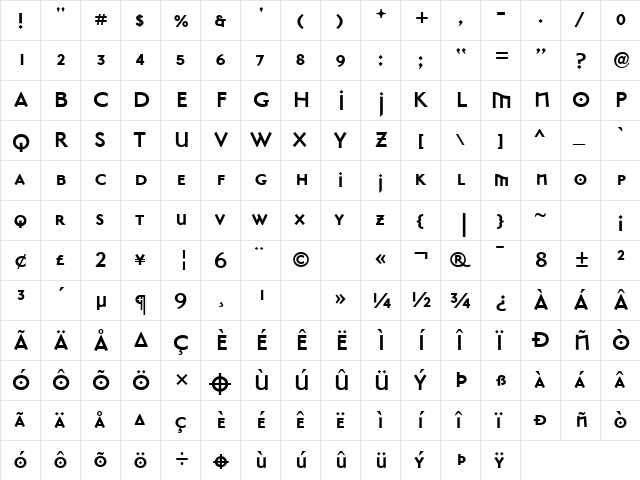
MasonSansAlternate Bold
MasonSansAlternate offers clean, dependable letterforms without strong stylistic allegiance, making it a practical choice for designers who need flexibility. Its bold stroke weight gives it real presence on the page.